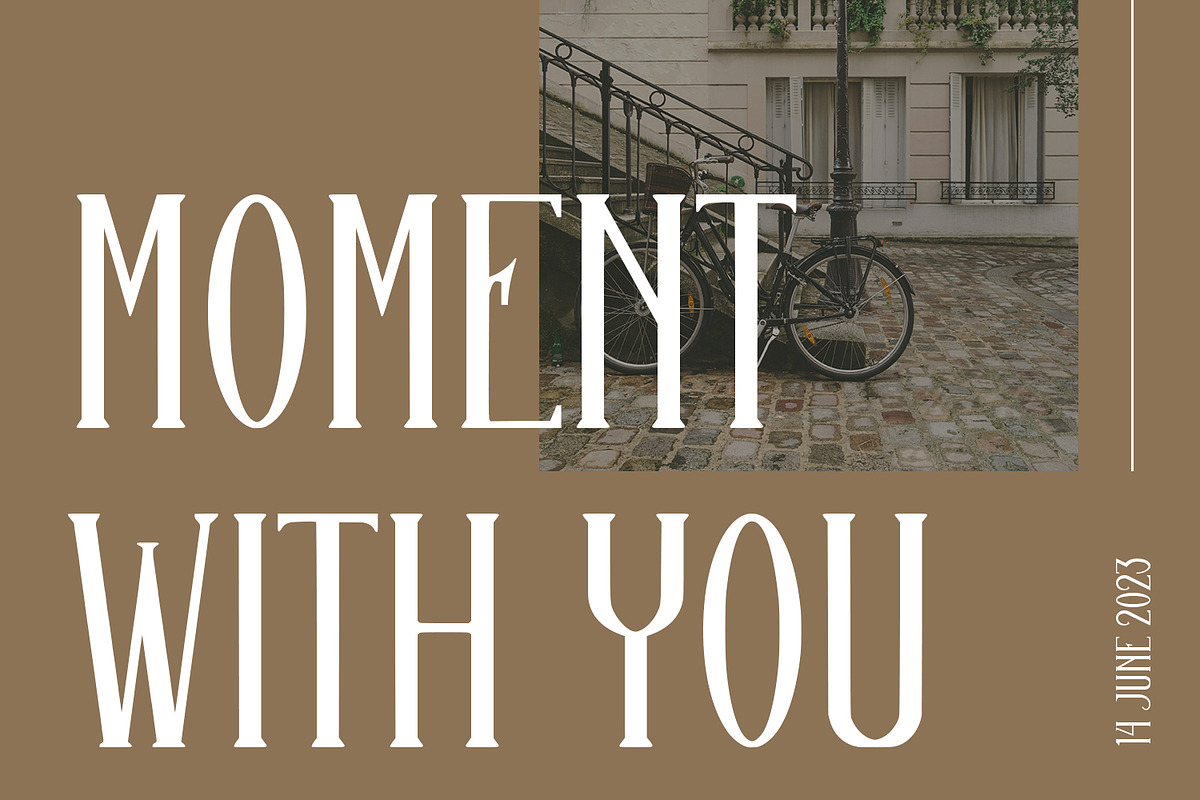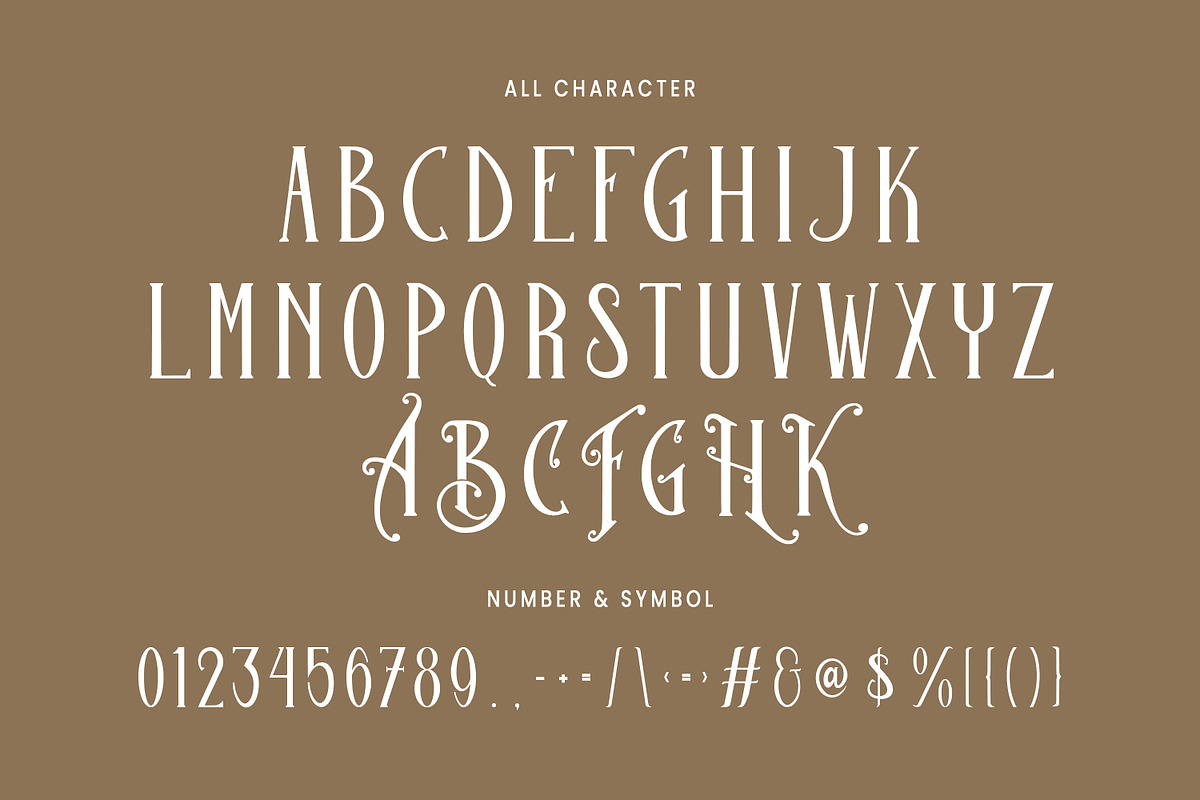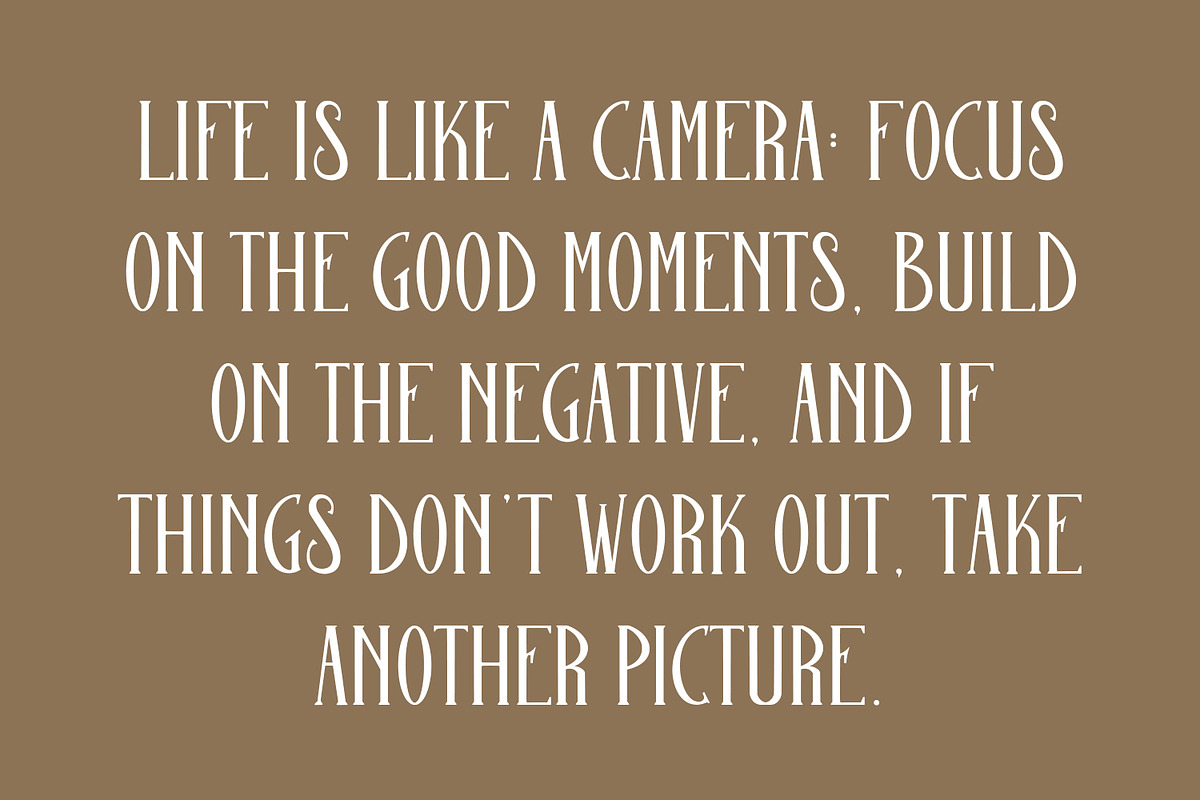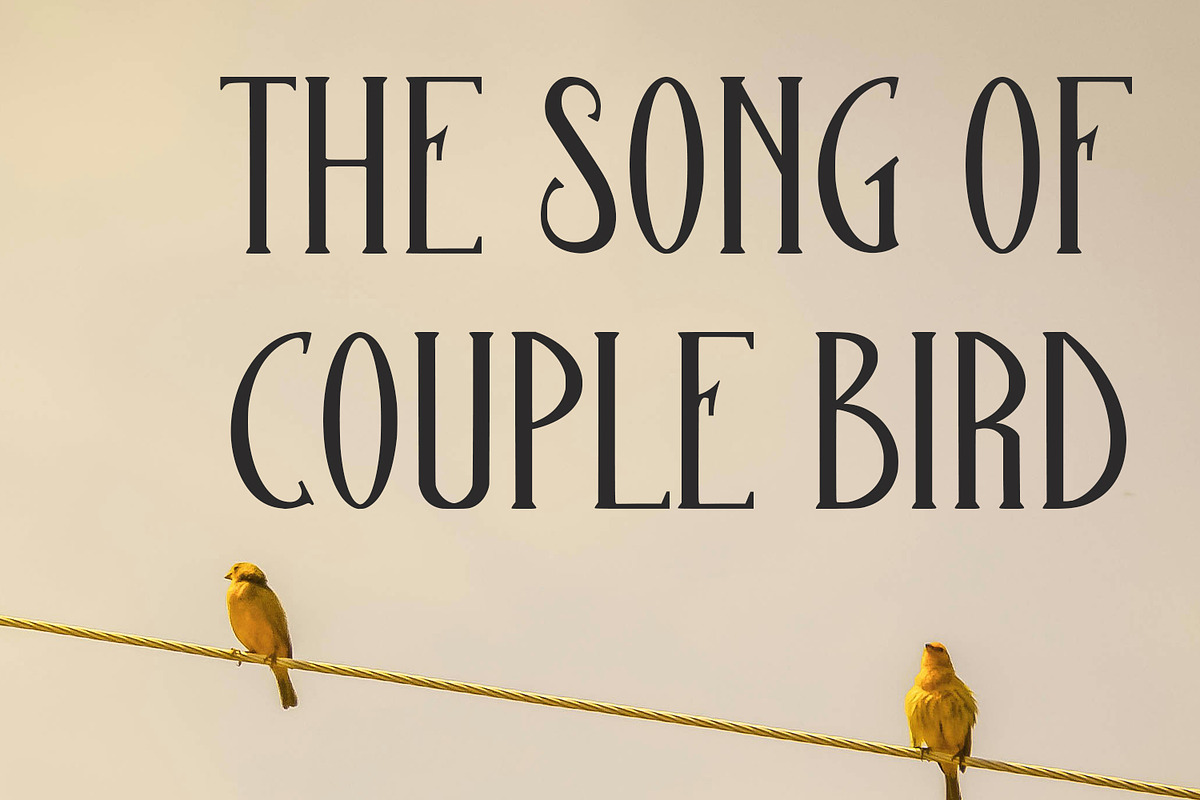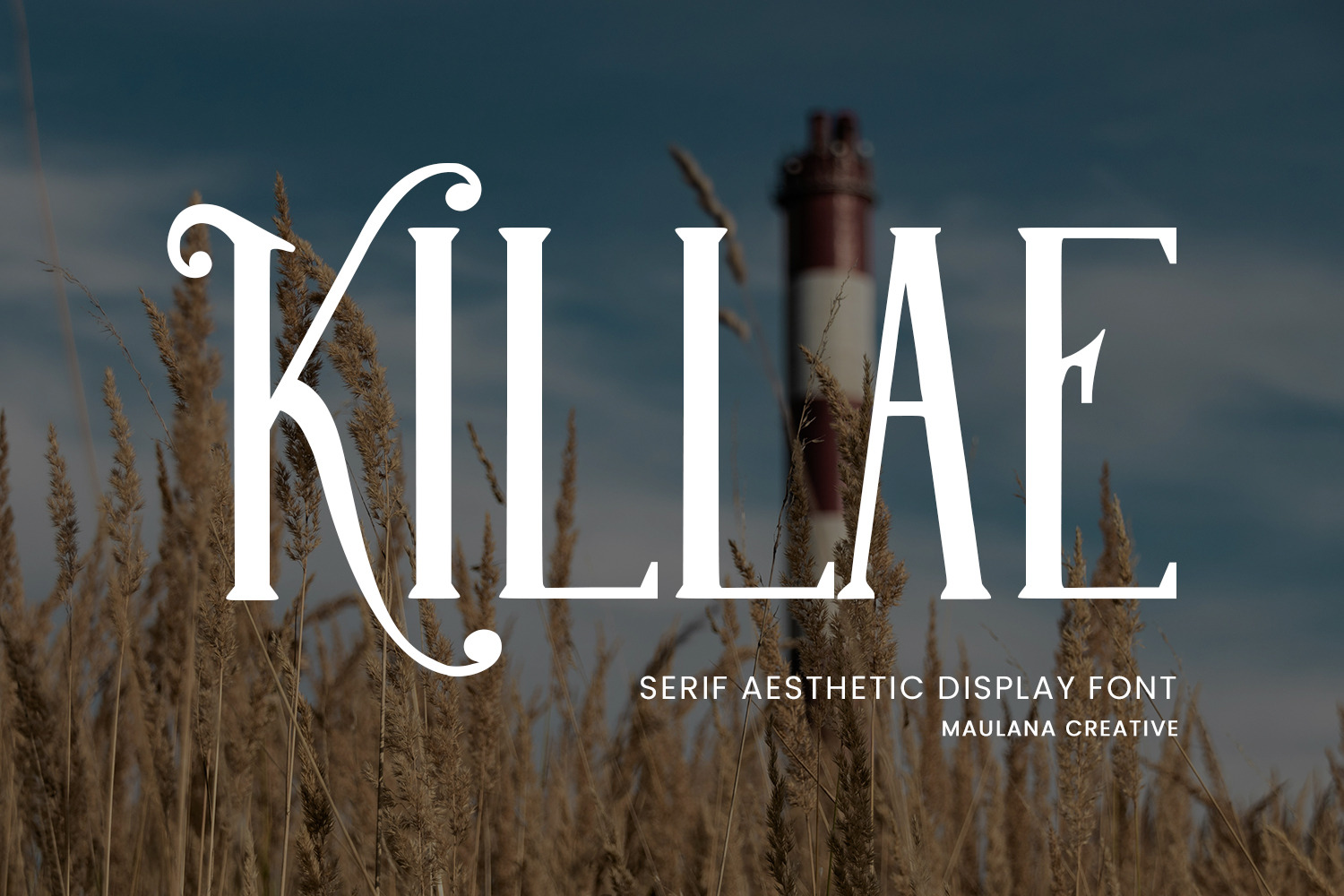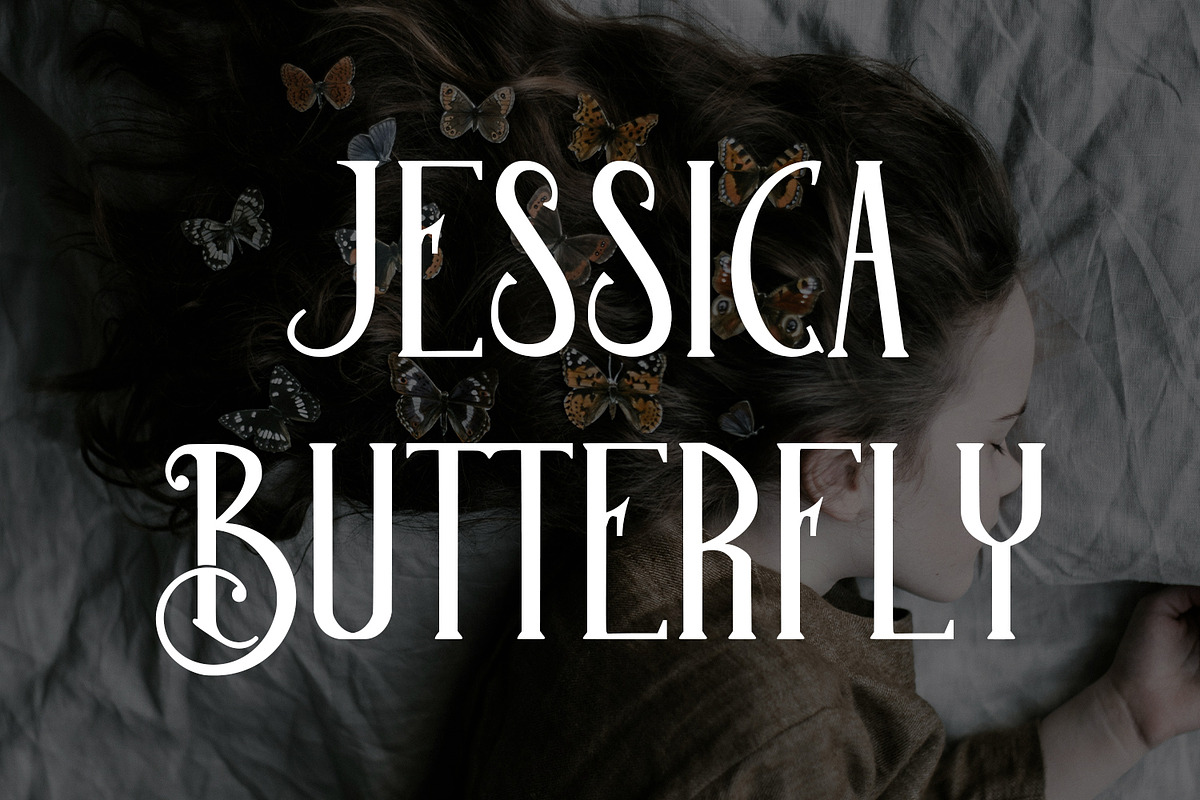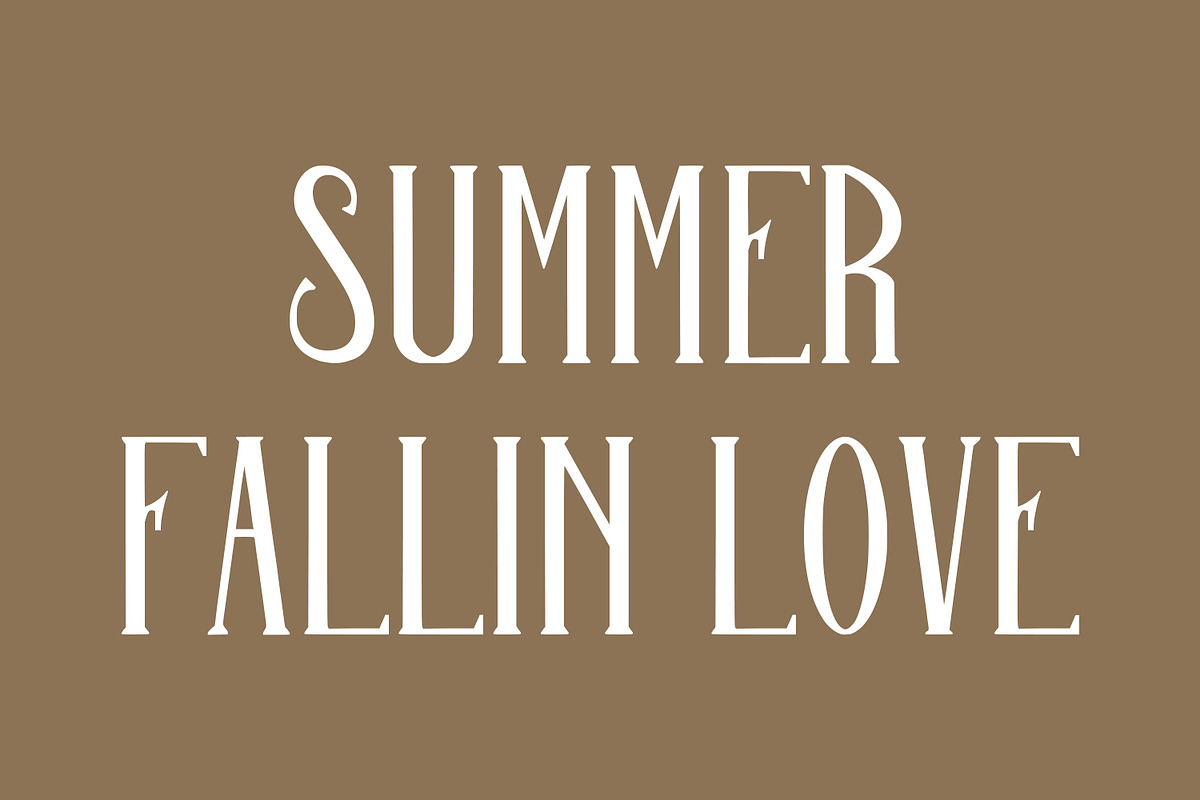
Killae Serif Aesthetic Display Font
Killae serif aesthetic display font. Fun character with a alternates. To give you an extra creative work. Killae support multilingual language. This font is good for logo design, Social media, Movie Titles, Books Titles, a short text even a long text letter and good for your secondary text font with script or serif. Make a stunning work with Killae serif aesthetic display font.